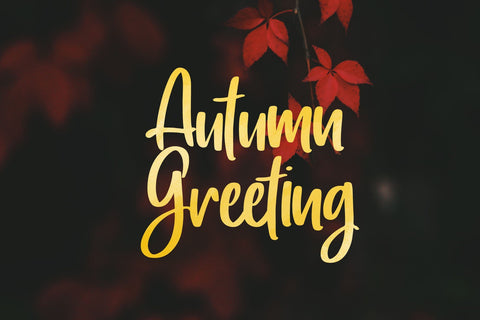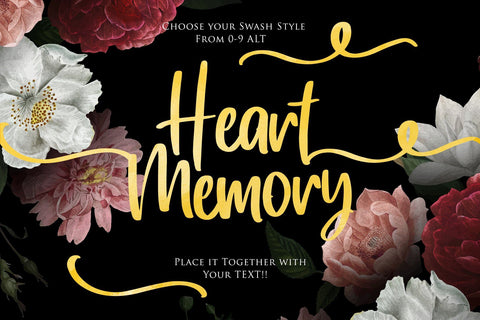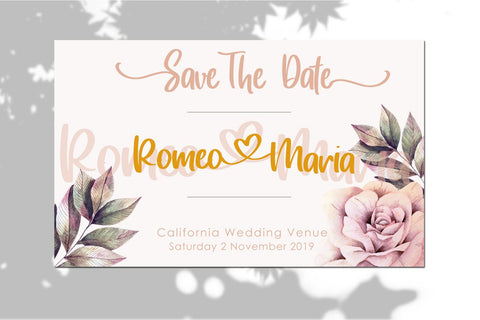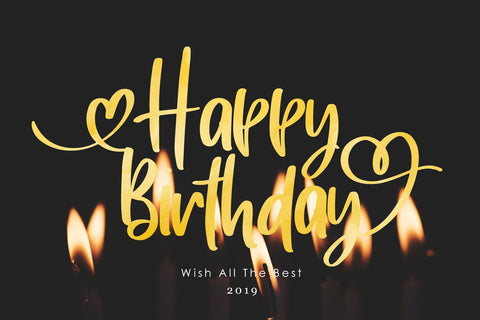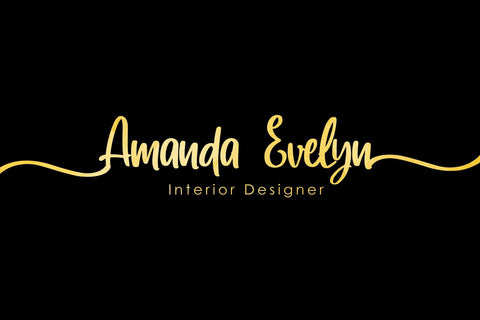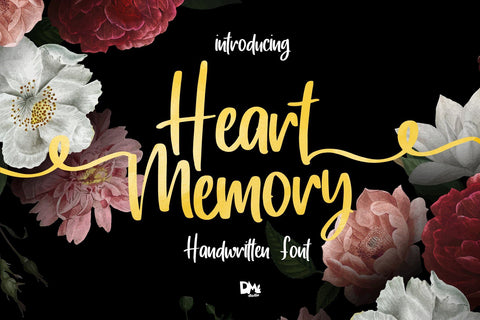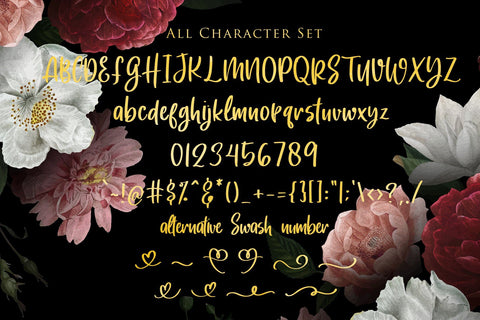
Heart Memory - Handwritten Font
Heart Memory Handwritten Font
Introduce the sweet, handwritten brush font : Heart Memory. Great font choice for your romantic, sweet, feminine, modern and catchy designs.
Comes with extra swash lines by activating the alternative numbers. You can simply attach the lines on your text, be as creative as you can!
- Uppercase, lowercase
- Symbols
- 10 Decoratiive swash lines ( activate the alt number )